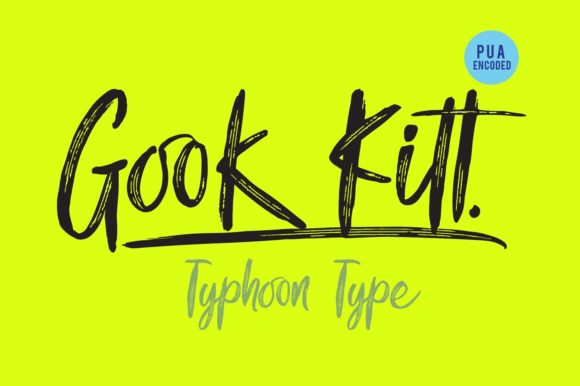
Introduction to Gook Kitt Font
Remember that moment when you’re working on a design project, and you need the perfect font to bring your vision to life? The cursor blinks, and you start searching for the perfect match. In that instant, you stumble upon Gook Kitt Font – a fun and bold handwritten font that screams authenticity. Your eyes light up as you imagine how it will add a unique spark to your design project.
Key Features of Gook Kitt Font
- Unique Design:** Gook Kitt Font features a distinctive and playful design, perfect for creative projects requiring a fun and quirky touch.
- Perfect for Creative Projects:** This font is ideal for designing greeting cards, party invitations, social media graphics, and other creative projects where a playful touch is required.
- Design Resource:** Gook Kitt Font is a versatile design resource that can be used in a variety of applications, from print materials to digital media.
Honest Review: Gook Kitt Font
I recently had the chance to try out the Gook Kitt Font, and I must say it’s a fun and quirky addition to any creative project. The font itself is high quality, with smooth lines and a unique character that really stands out. I appreciate that the font comes with a transparent background, making it easy to integrate into any design.
One of the things I love about Gook Kitt Font is its versatility. It’s perfect for use in illustrations, graphics, and even web design. I’ve used it in a few projects already, and it always adds a bit of whimsy and personality. ✨
- Unique character and style
- Perfect for creative projects and illustrations
- Not ideal for use in body text, due to its playful style
- May not be suitable for corporate or formal designs
Gook Kitt Font is a versatile font that can be used in a variety of design projects, including social media graphics, blog posts, and marketing materials. Its unique design makes it a great choice for any creative project that requires a bold and eye-catching visual.